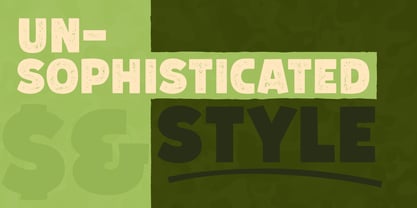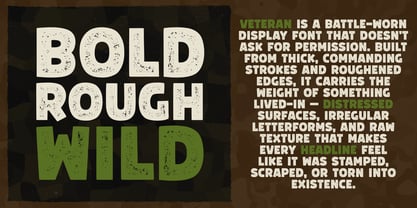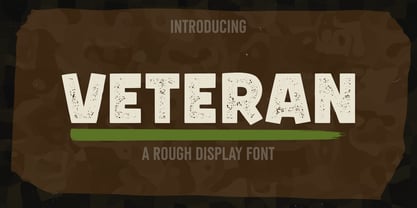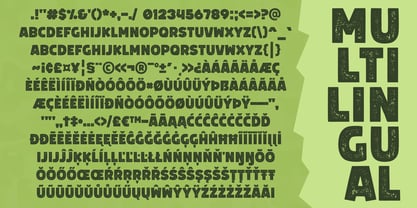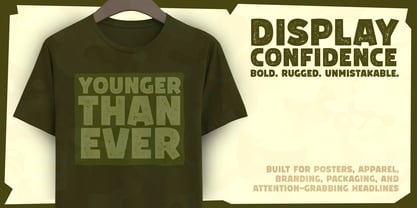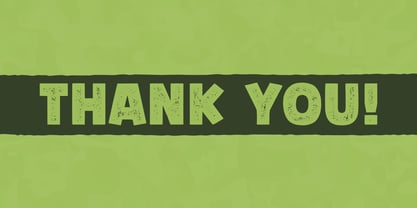
Veteran
Veteran is a bold display font characterized by its rugged letterforms, distressed details, and commanding presence. Drawing inspiration from weathered markings, field equipment, and worn signage, it merges strong shapes with a rough texture, resulting in a design that exudes toughness, durability, and unique character. Ideal for a variety of applications including posters, apparel, branding, packaging, signage, merchandise, and promotional graphics, Veteran ensures impactful visuals while maintaining excellent readability. Its robust construction and textured finish make it an excellent choice for designs that demand attention and confidence. Whether utilized for outdoor-themed projects, workwear branding, event graphics, or striking headlines, Veteran delivers a rugged and unmistakable voice that resonates on the page.